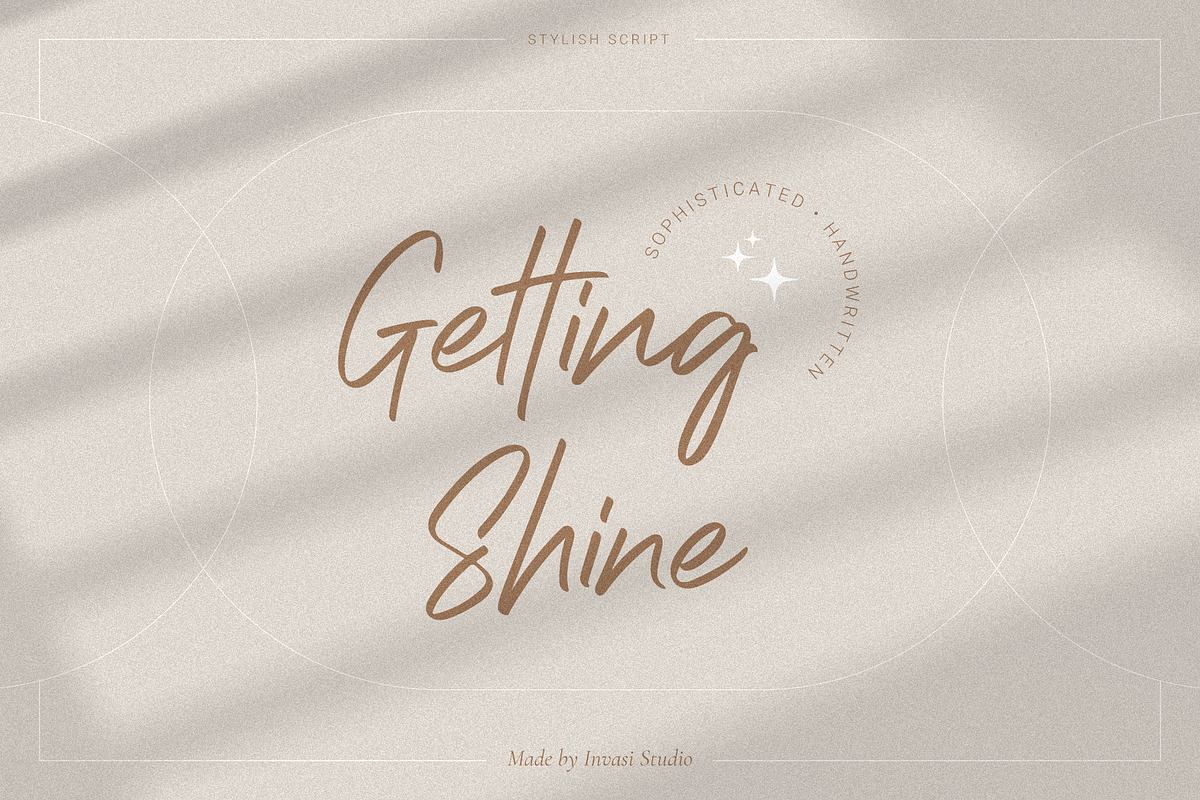
Getting Shine - Stylish Script Free Download
Getting Shine - Stylish Script Font Free Download
Please note, to use this font for commercial purposes, you must purchase the full version. Getting Shine is a stylish script font that adds an elegant and modern flair to any design. Its smooth, flowing strokes and sophisticated appearance make it perfect for wedding invitations, logos, advertisements, and more. Whether you're looking to create an elegant brand or add a personal touch to your projects, Getting Shine brings a sense of luxury and charm. Test it out and enjoy free download access for personal use. Experience the beauty of Getting Shine - Stylish Script Font Free Download before committing to the commercial version. Let this stunning font elevate your designs with its unique and graceful style.